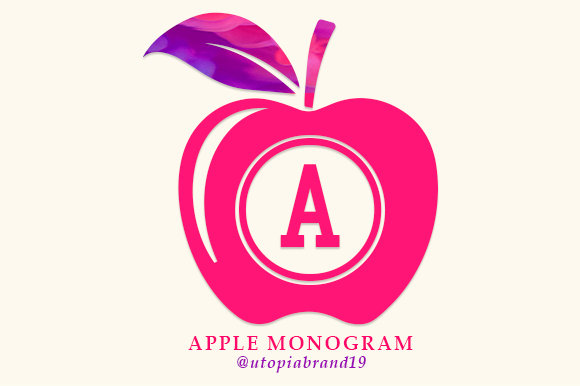
The Apple Monogram Font: A Designer’s New Best Friend
I still remember the time I was working on a project for a client who wanted a custom wedding invitation. I had the design concept all sorted out, but I was struggling to find the perfect font to match the elegant and sophisticated vibe they were going for. That’s when I stumbled upon the Apple Monogram font, and let me tell you, it was love at first sight! 💕
The Apple Monogram font is a versatile and authentic decorative font that has become a staple in my design toolkit. In this article, I’ll share with you what makes this font so special, its features, and how to use it on different platforms.
- ✨ Elegant and sophisticated design
- ✅ Highly versatile and adaptable
- 🔥 Perfect for creating stunning monograms and logos
- 💬 Great for use on menus, invitations, and other design materials
While the Apple Monogram font is amazing, there are a few things to keep in mind 🤔:
- ⚠️ Limited availability of certain characters and glyphs
- ⚠️ May require manual adjustments for optimal spacing and kerning
One of the standout features of the Apple Monogram font is its OpenType features and glyphs. These allow you to customize your text and add unique touches to your design. For example, you can use:
- Stylistic alternates to swap out letters or symbols
- Glyphs to add decorative elements, such as flourishes or swashes
- Ligatures to combine letters or symbols for a more elegant look
The Apple Monogram font was inspired by the classic typography of the 19th century. Its creator, a talented designer, wanted to craft a font that would evoke a sense of luxury and sophistication. With its elegant lines and beautiful glyphs, it’s no wonder that Apple Monogram has become a favorite among designers.
Q: What is the Apple Monogram font?
A: The Apple Monogram font is a decorative font designed for creating stunning monograms, logos, and design elements.
Q: Is Apple Monogram font suitable for body text?
A: While Apple Monogram font is beautiful, it’s not ideal for body text. It’s best used for headlines, titles, and design elements.